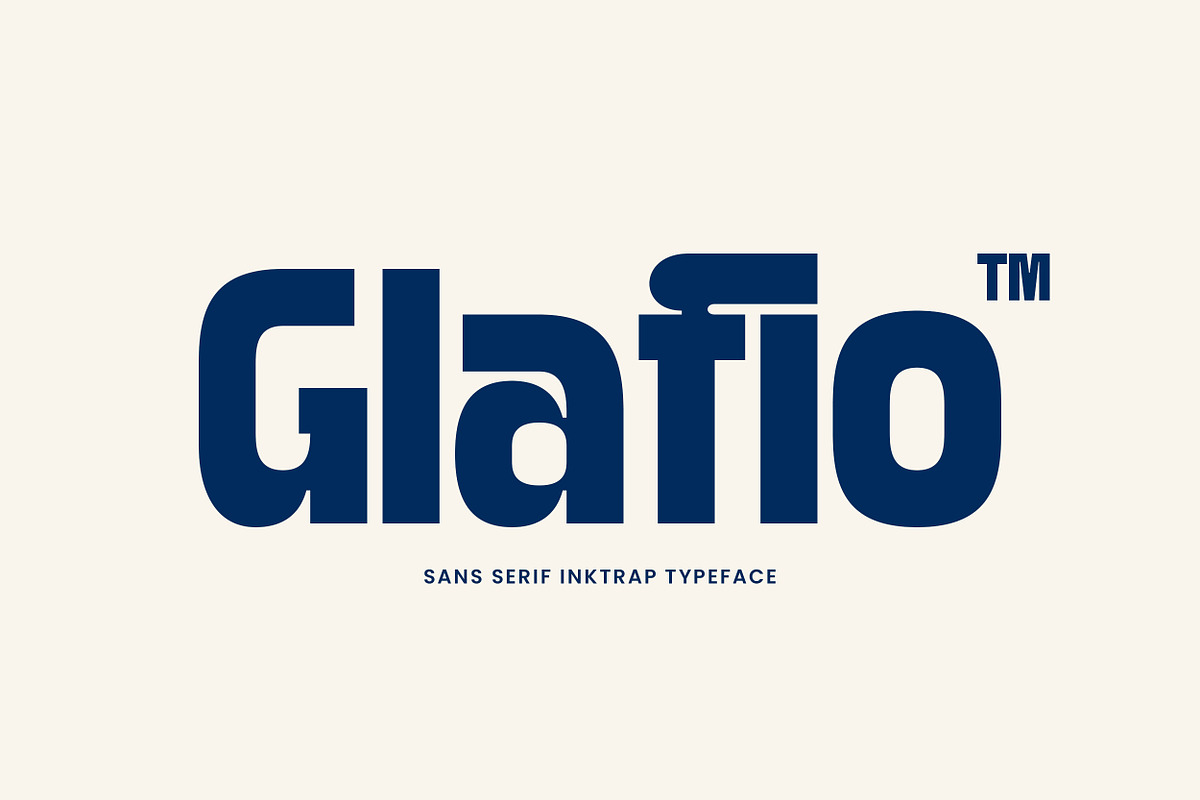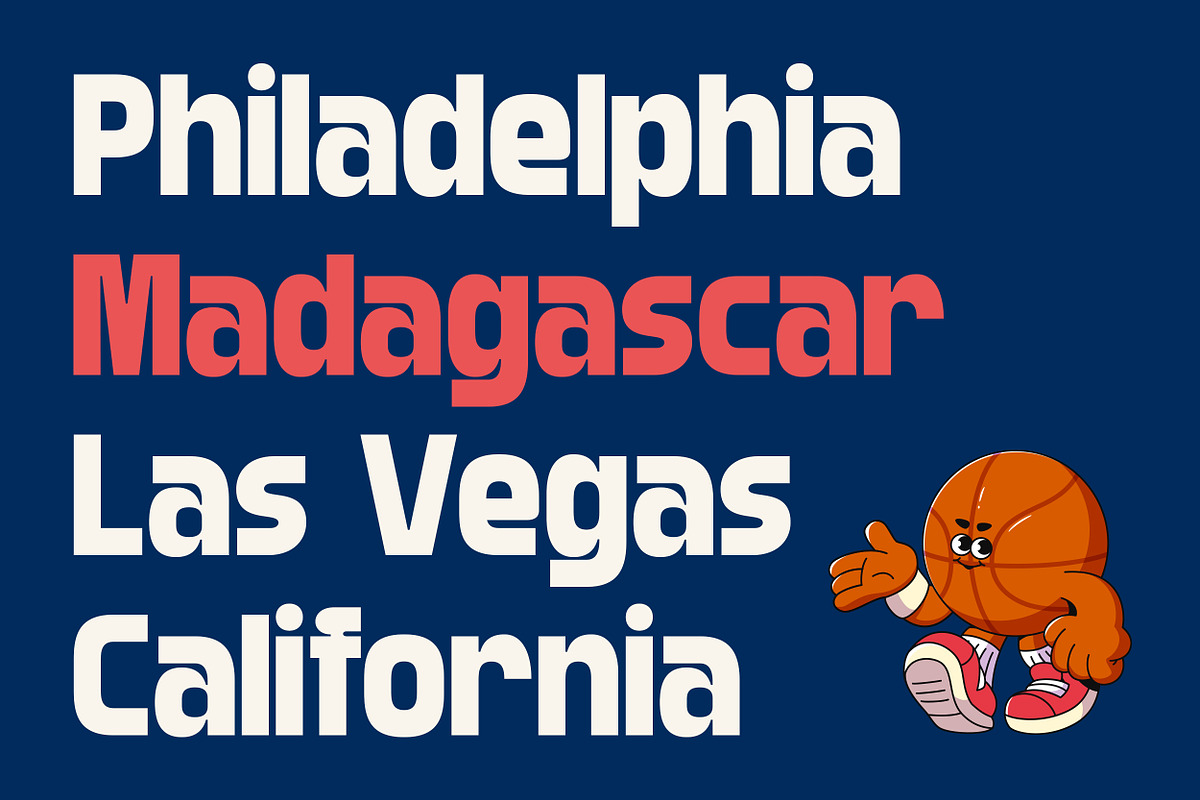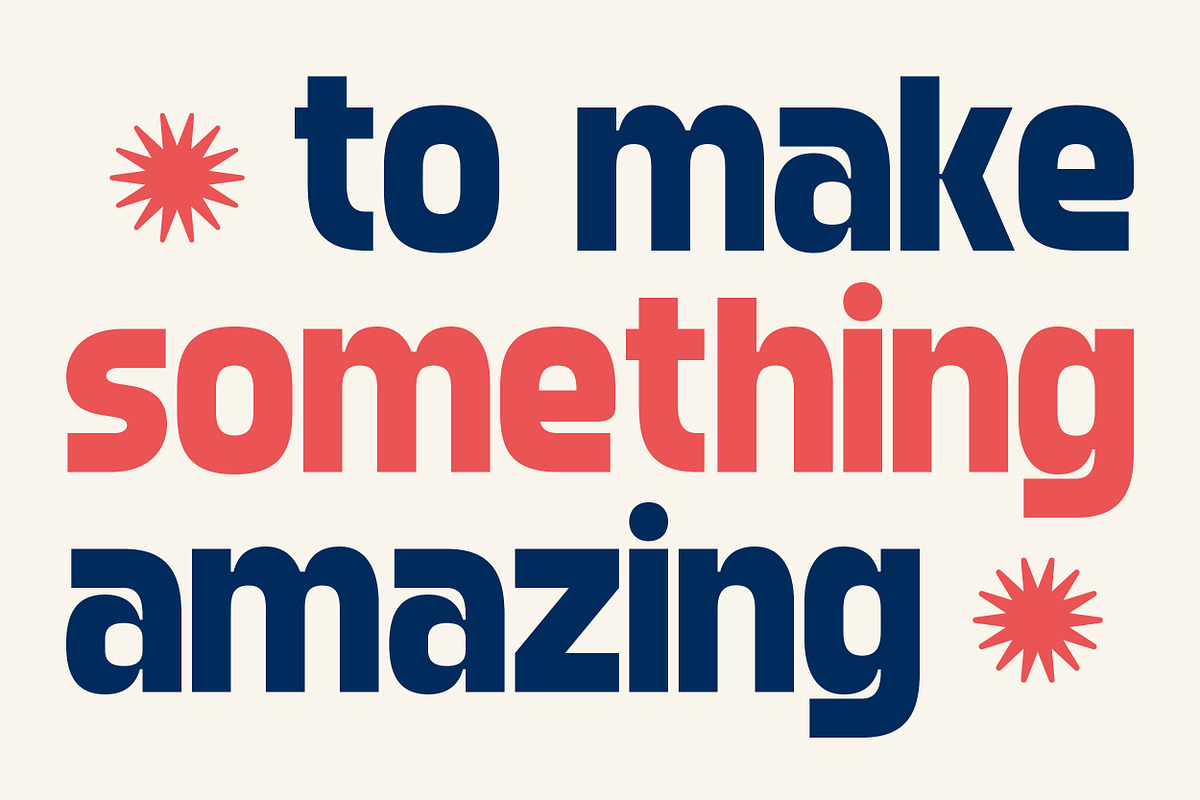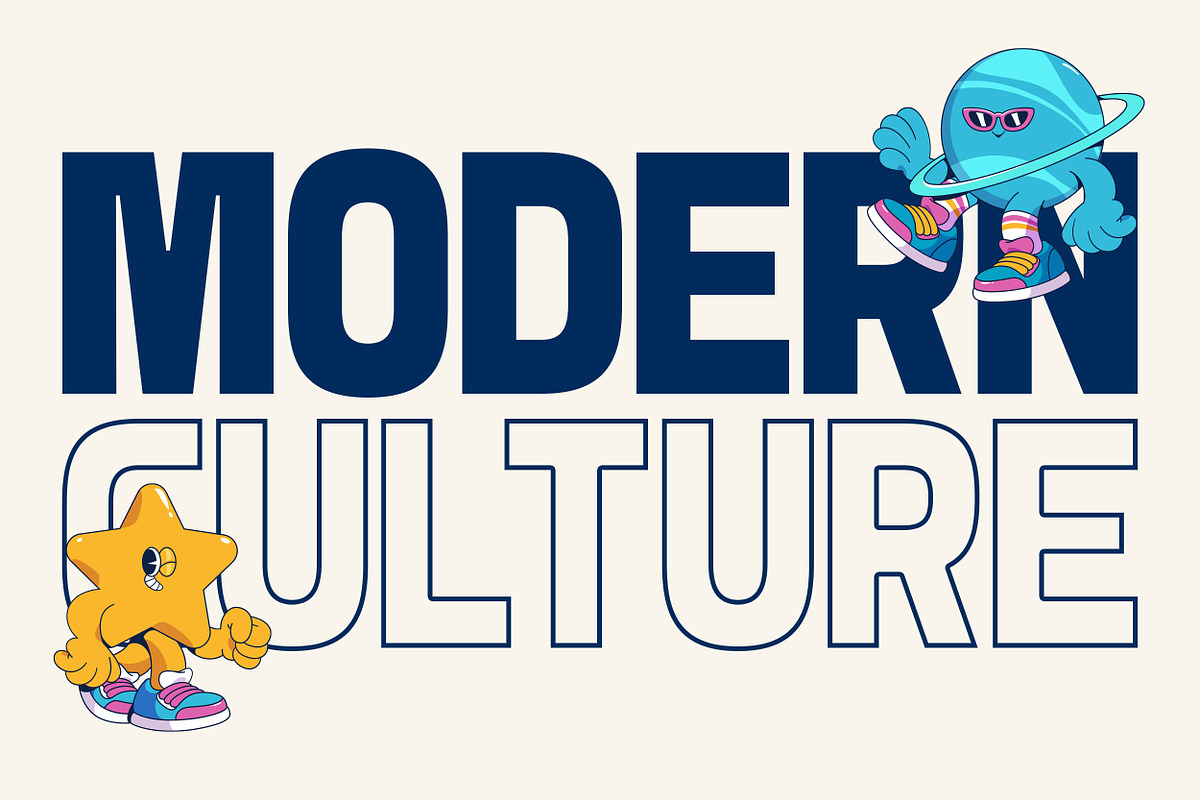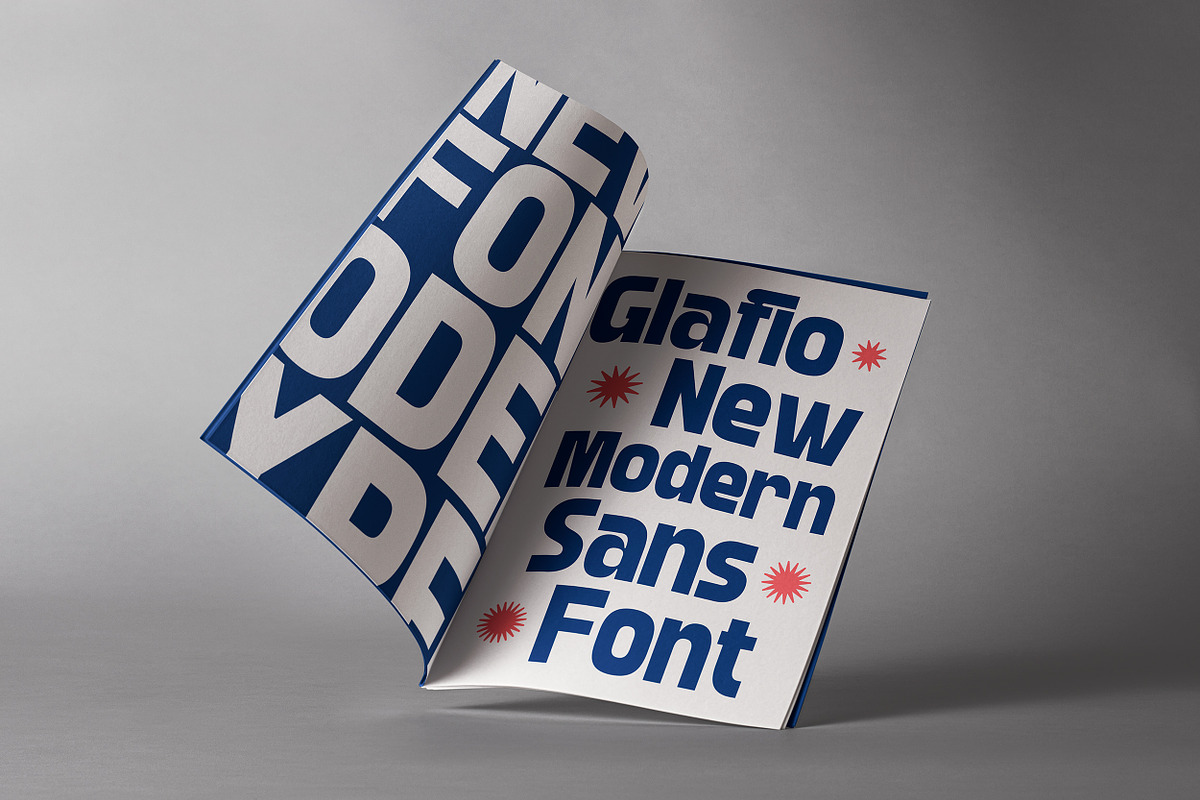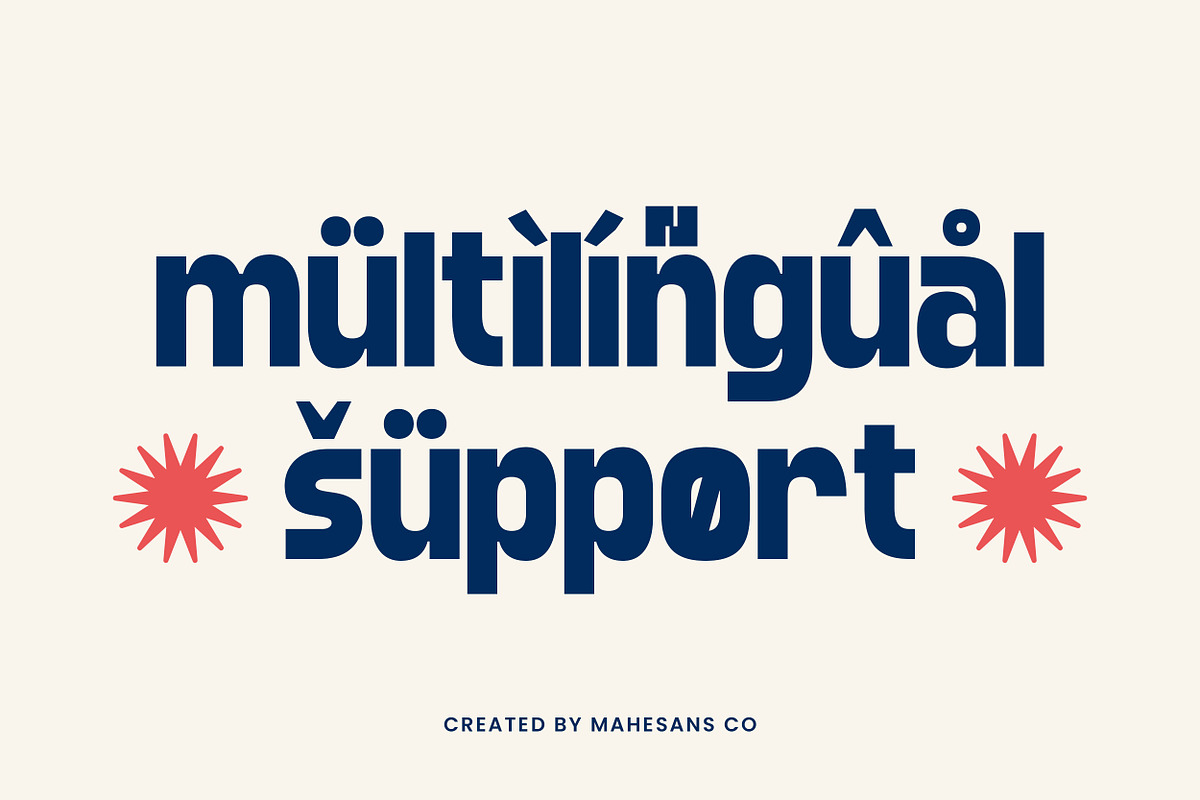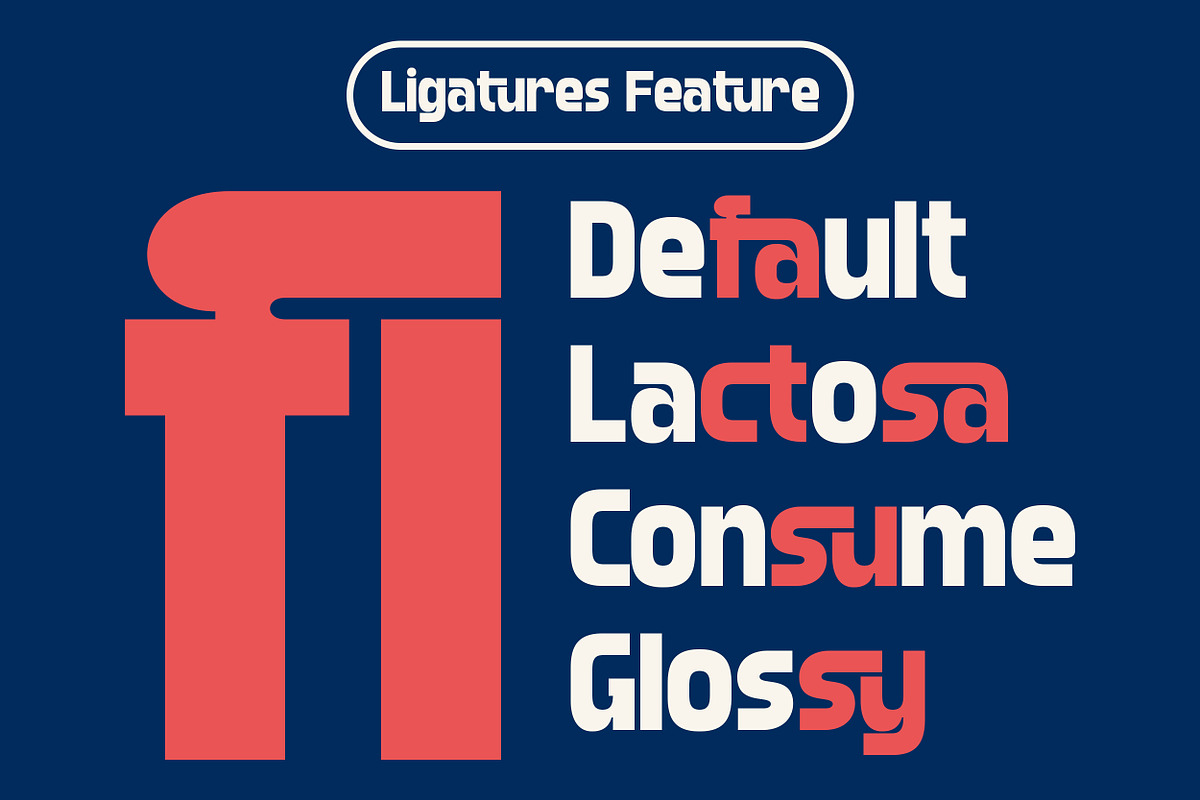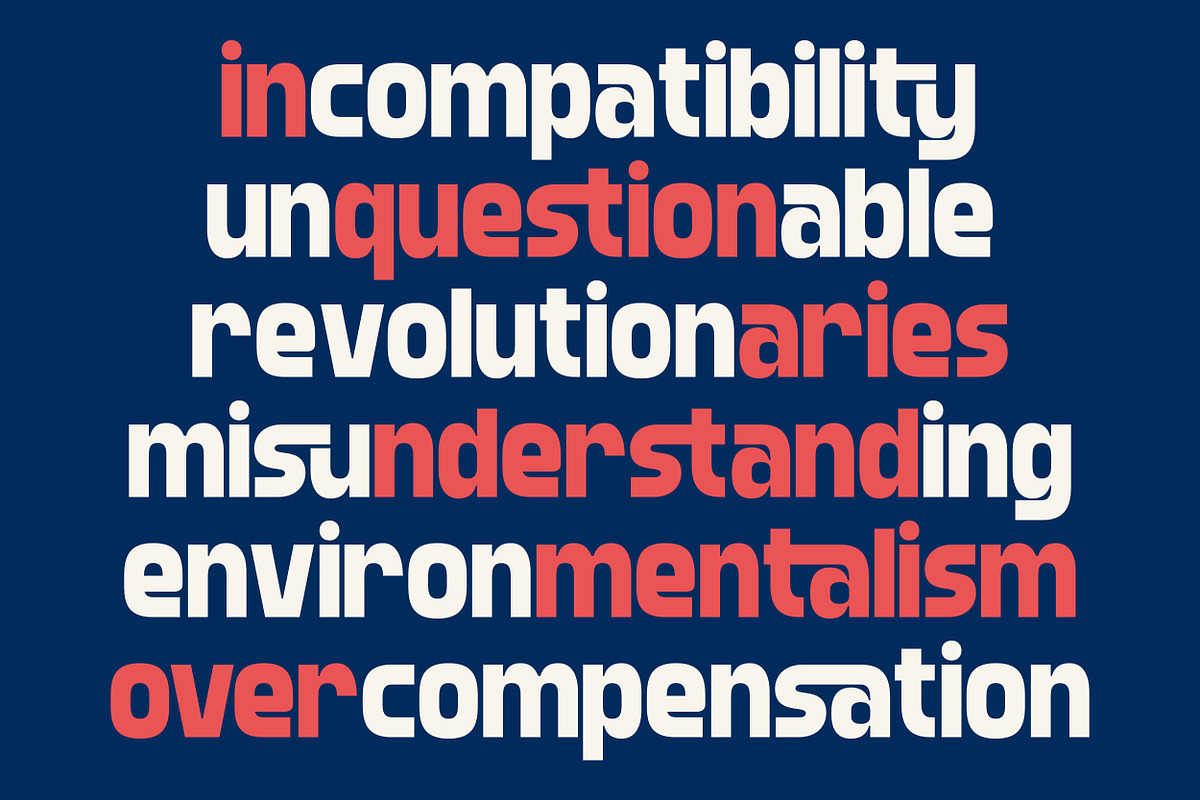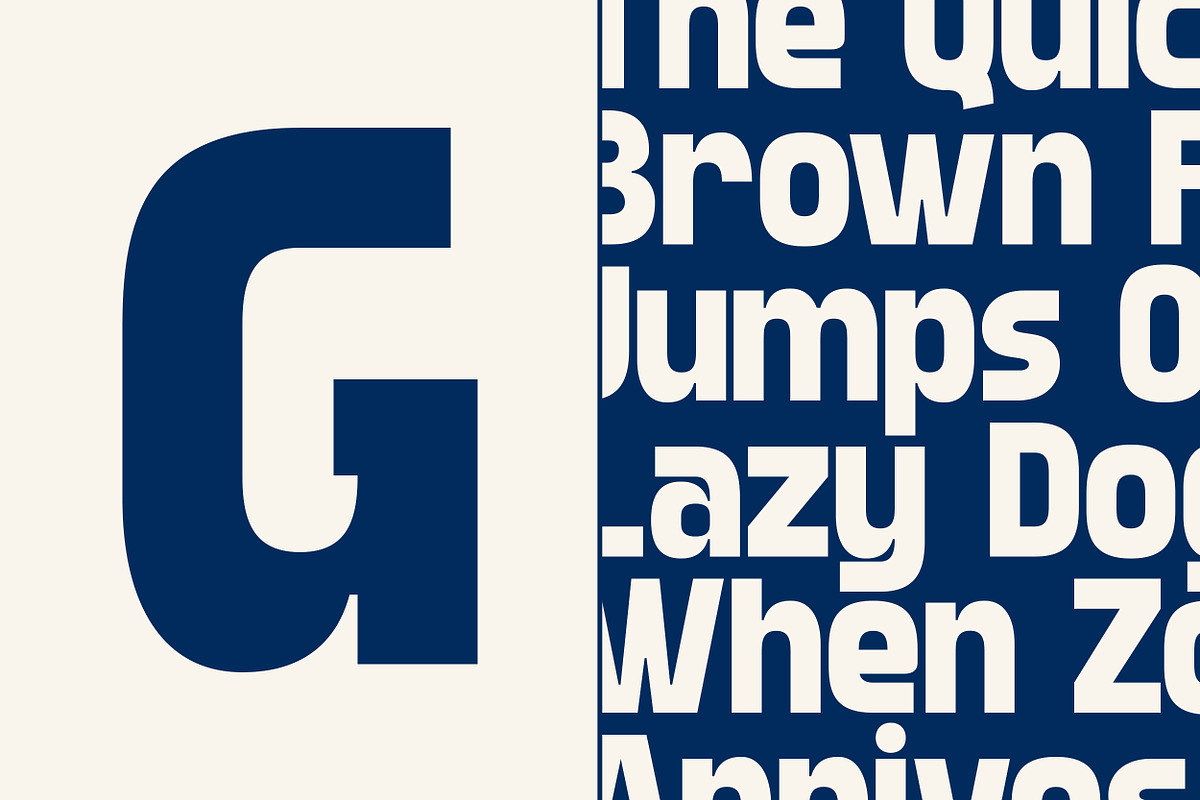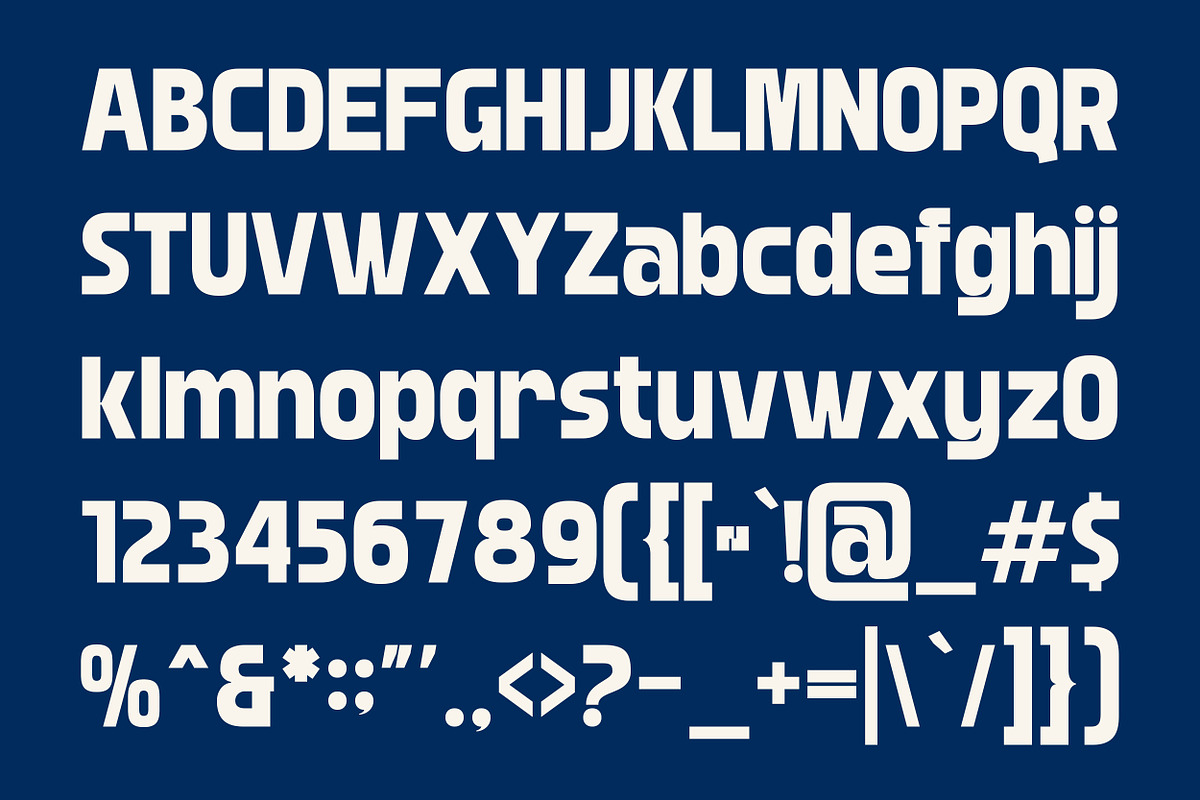
Glafio – Modern Sans Serif Inktrap
Introducing Glafio, a bold sans serif typeface with distinctive inktrap details that add strength and style to any project. Designed to balance modern precision with playful character, Glafio is perfect for creating logos, headlines, posters, packaging, and branding that truly stand out.
This typeface brings versatility to your workflow with clean readability and unique ligature features, making it suitable for both digital and print designs. From minimalist layouts to vibrant visual identities, Glafio helps your work shine with a confident and contemporary feel.
- Multilanguage
Take your typography game to the next level with Glafio — the sans serif inktrap font built to make your designs bold and unforgettable.